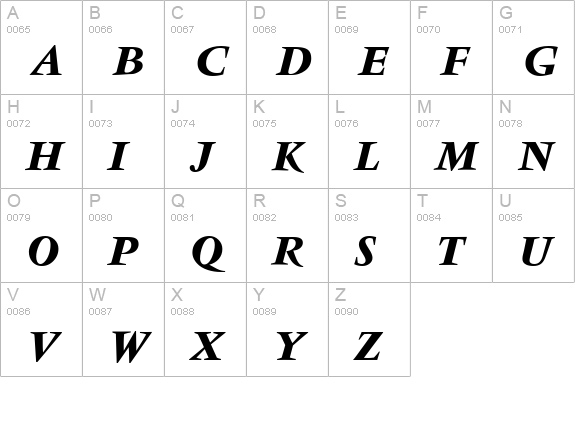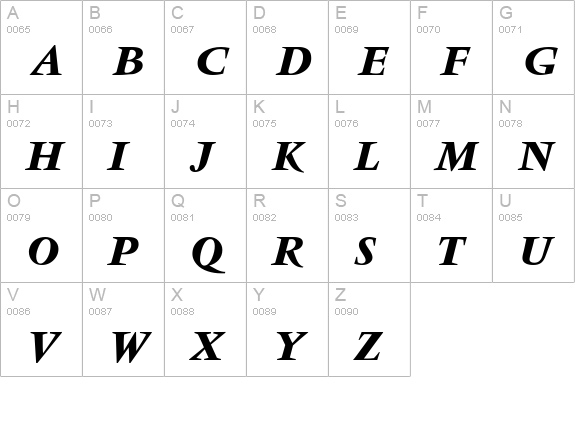
V691-Roman-BoldItalic Font Details
The V691-Roman-BoldItalic font is a striking and elegant typeface that exudes a sense of sophistication and classic charm. Its bold, italicized design adds a touch of flair and style to any project it is used in. Perfect for conveying a sense of luxury and refinement, this font is ideal for headlines, titles, and other attention-grabbing text. What sets the V691-Roman-BoldItalic font apart is not only its aesthetic appeal but also its versatility. Whether used in print or digital media, this font stands out and commands attention. Its bold strokes and italicized design make it perfect for creating a strong visual impact. The best part about the V691-Roman-BoldItalic font is that it is completely free to download at FontsMarket.com. This means you can enhance your projects with this elegant font without any cost involved. So why wait? Download the V691-Roman-BoldItalic font today and add a touch of sophistication to your designs.